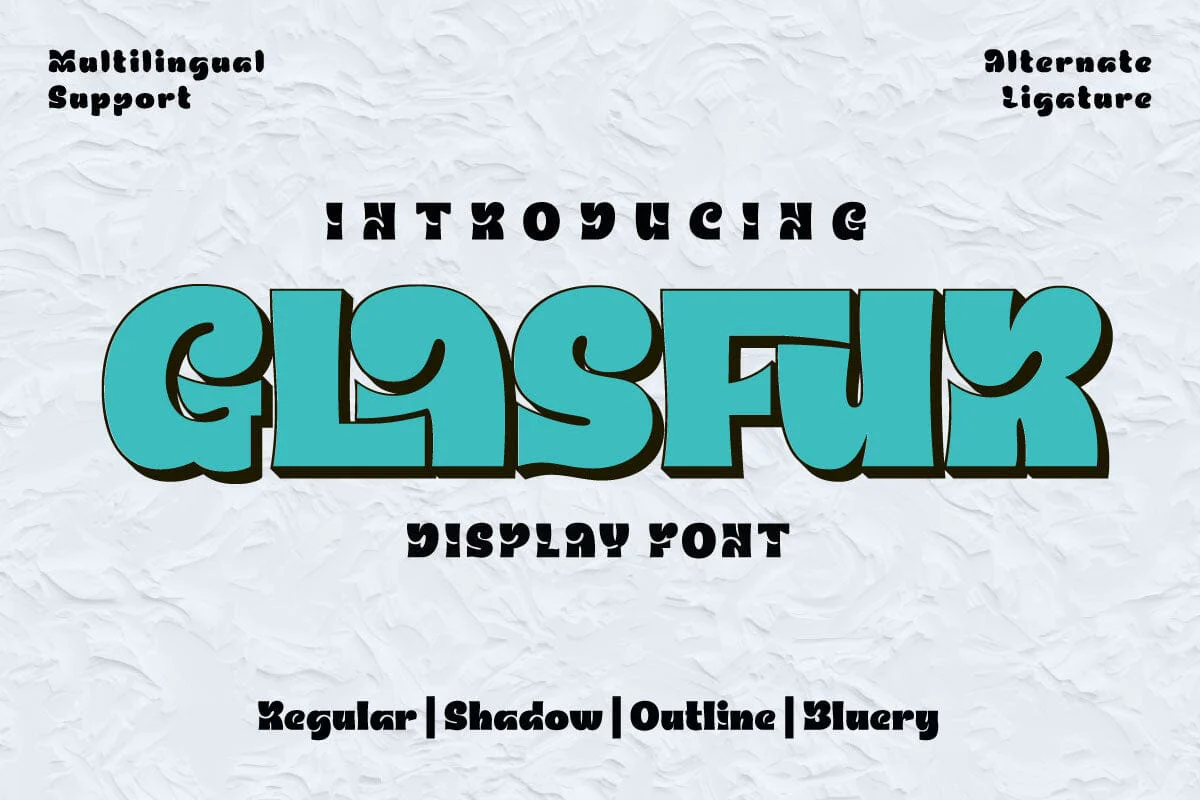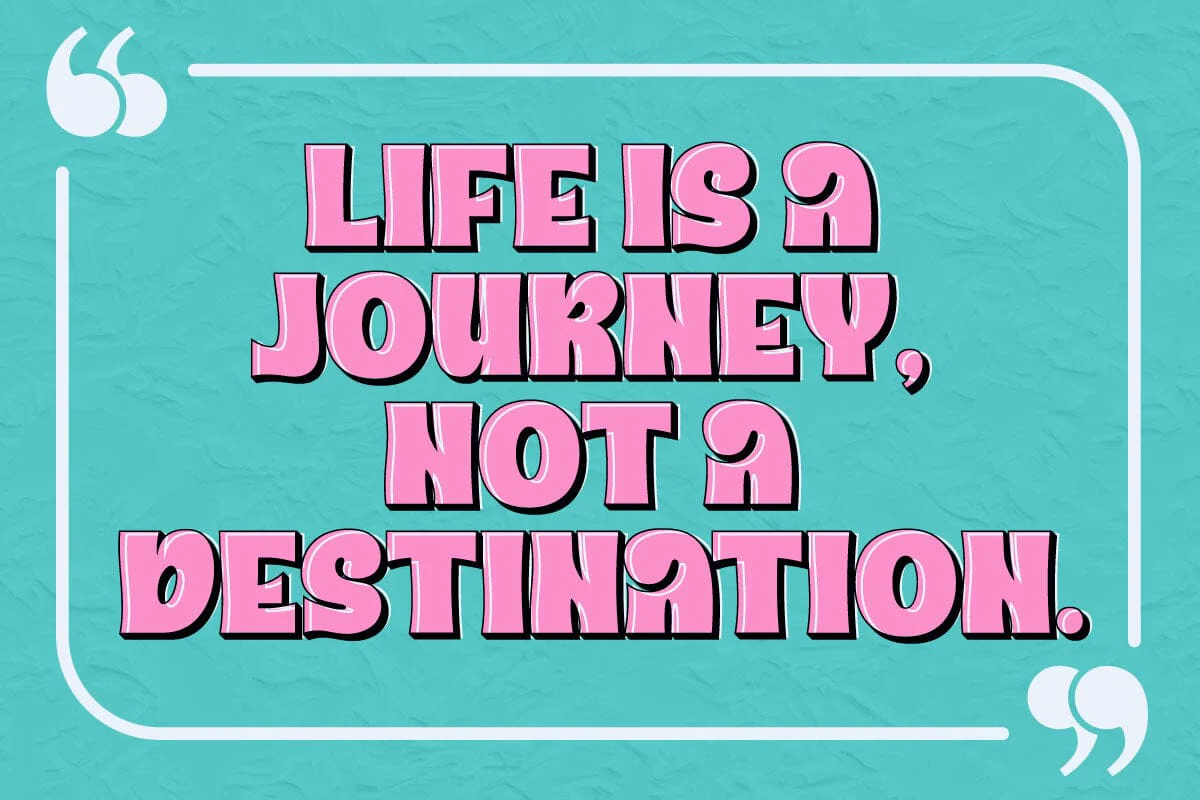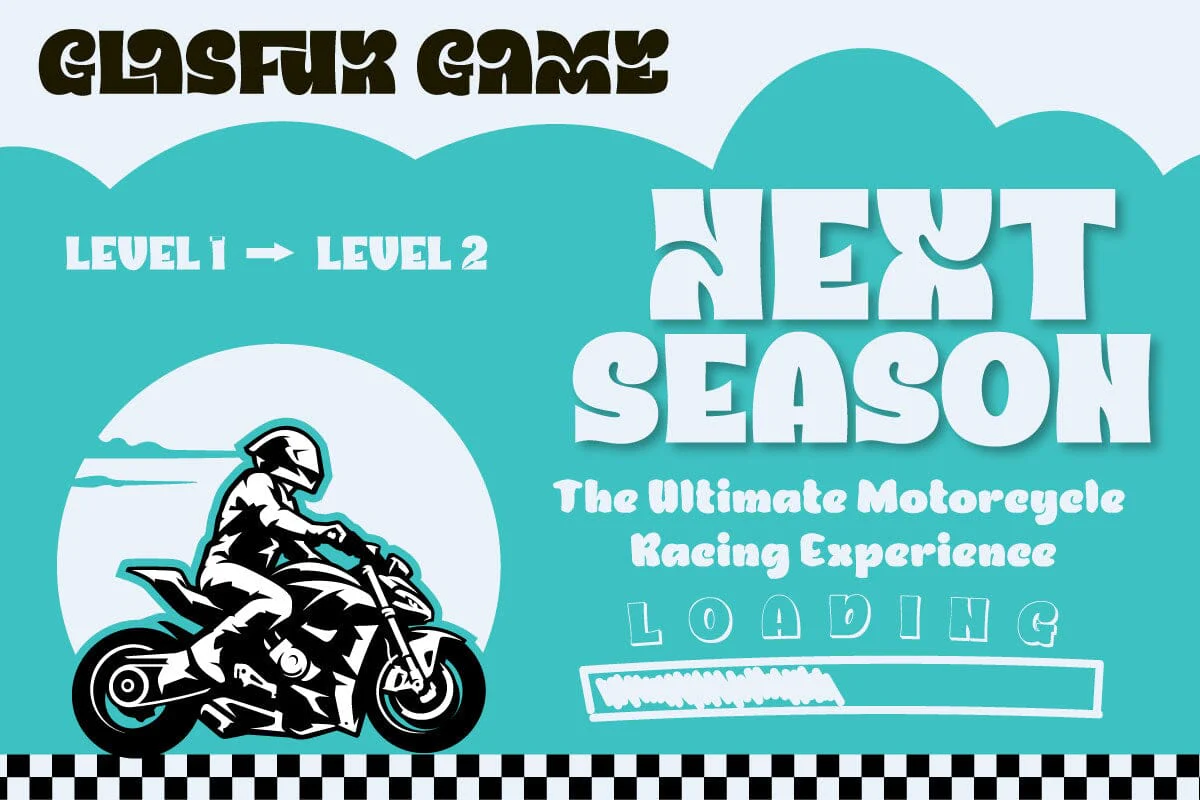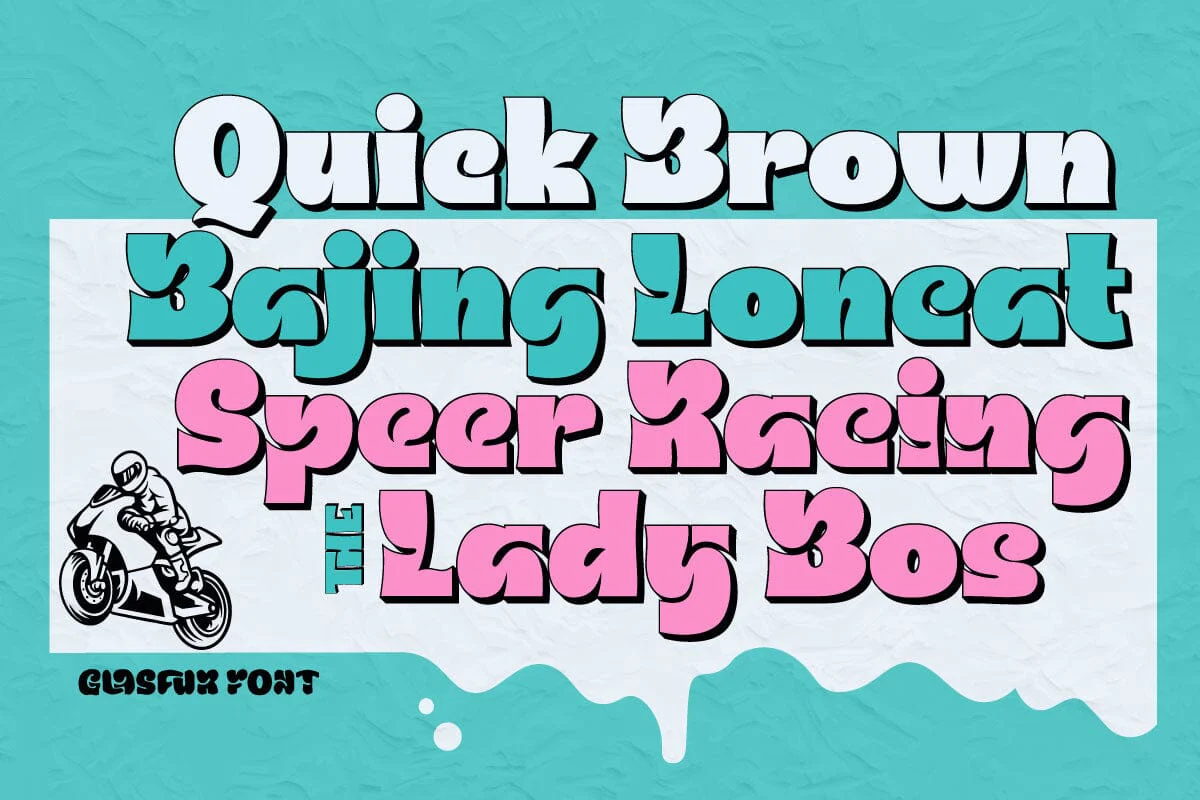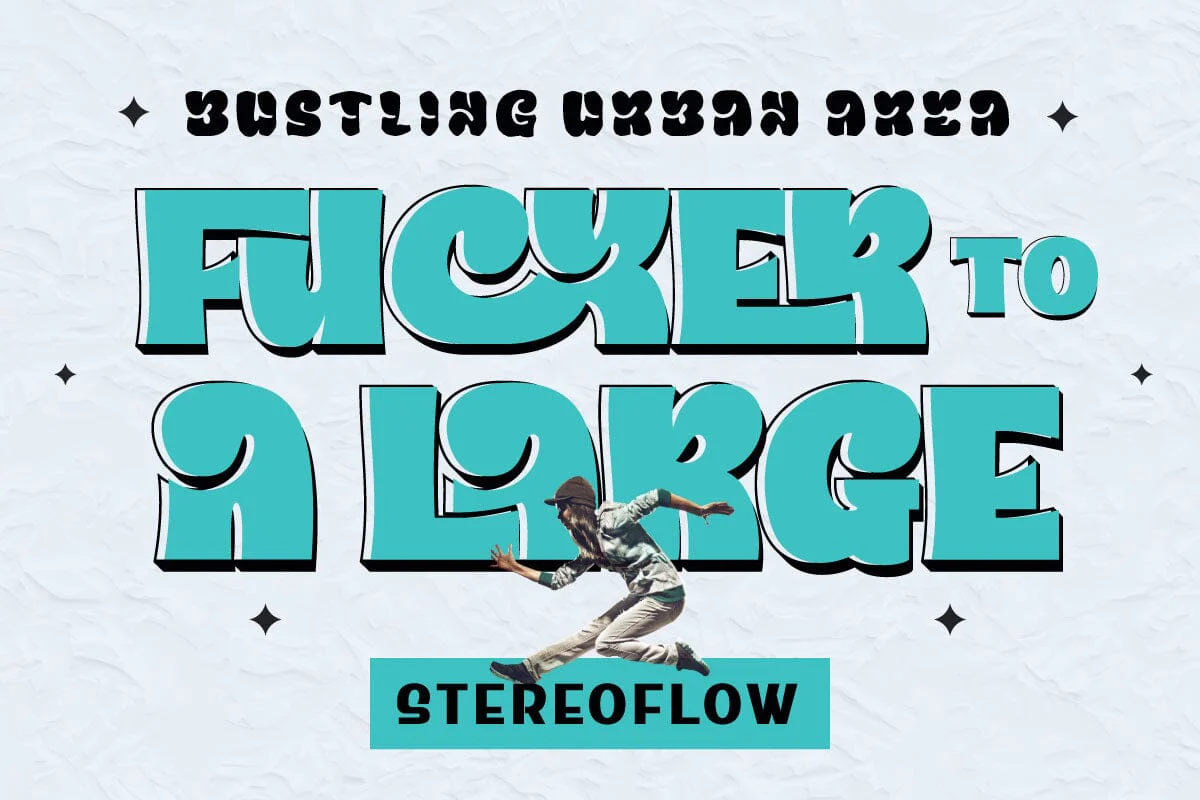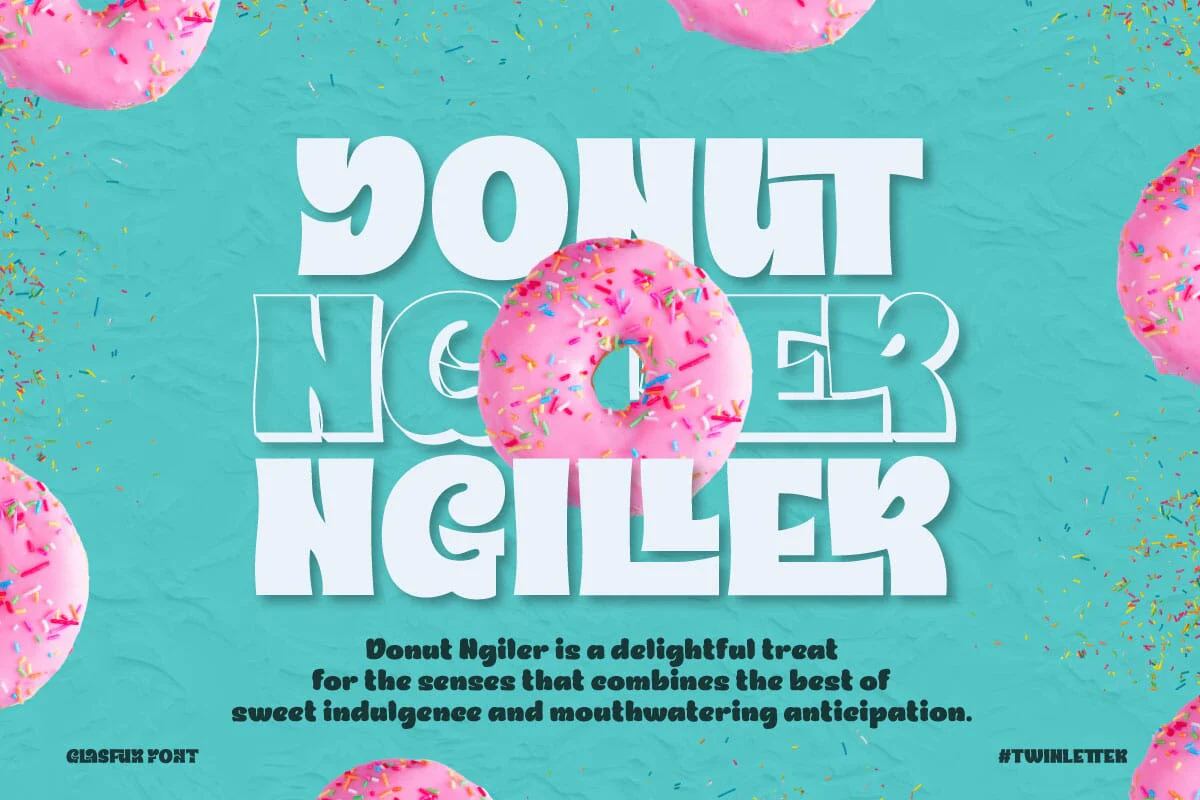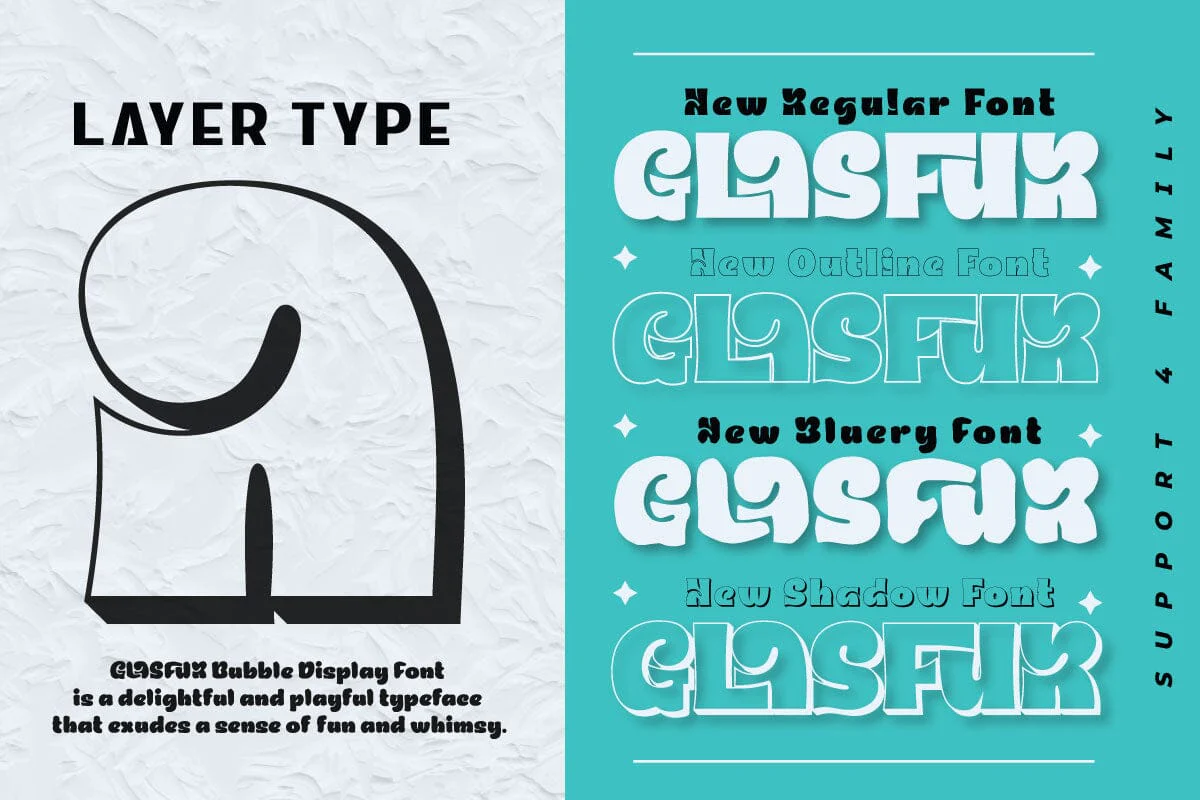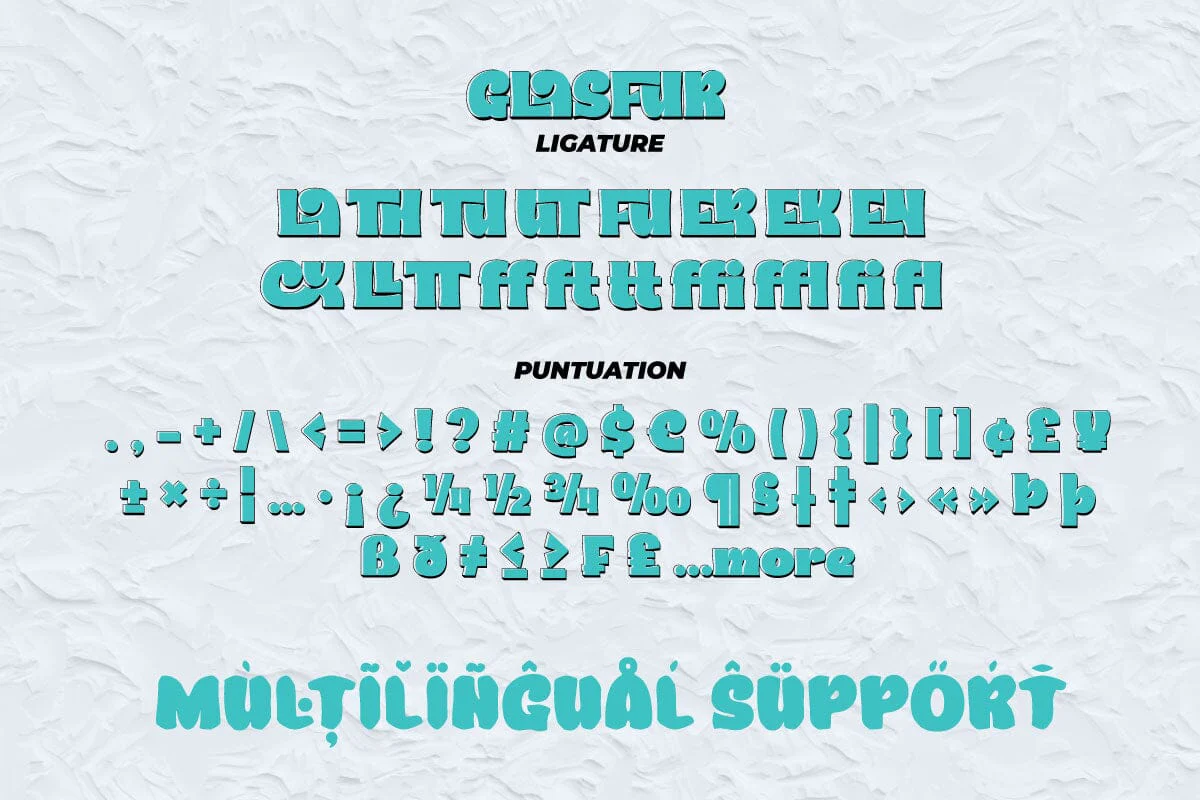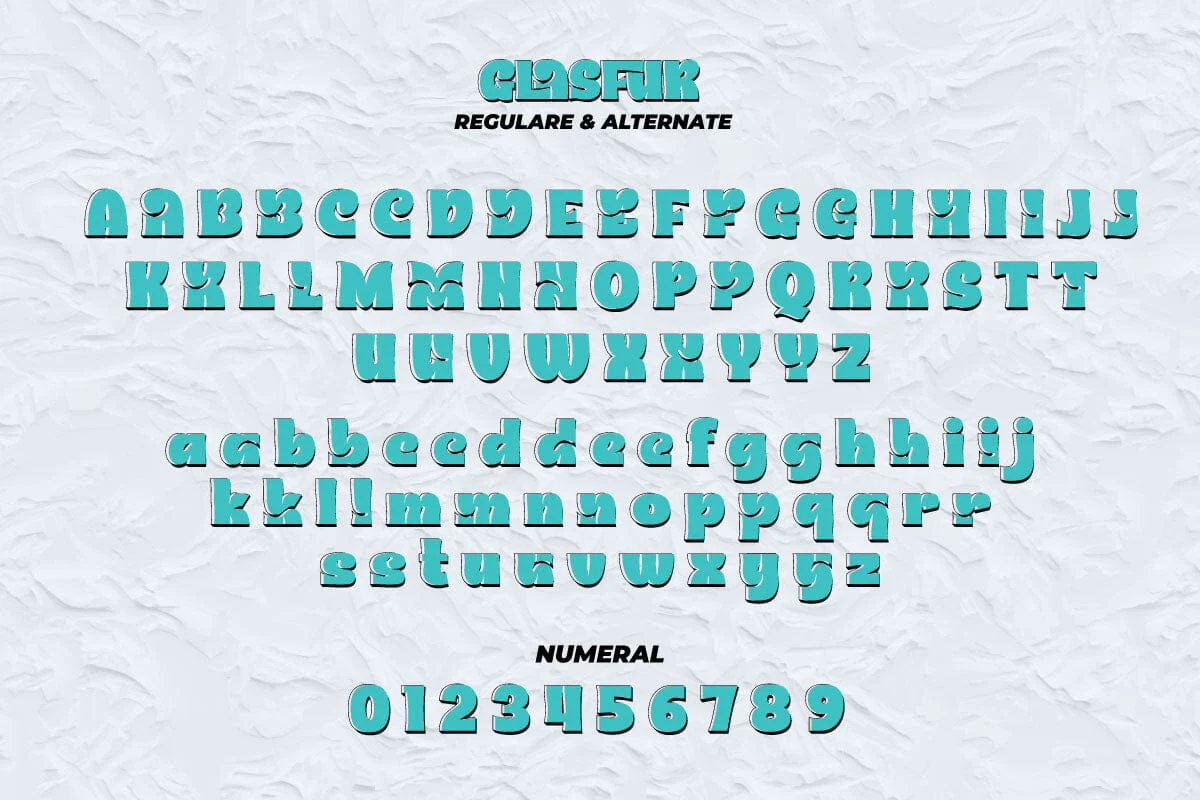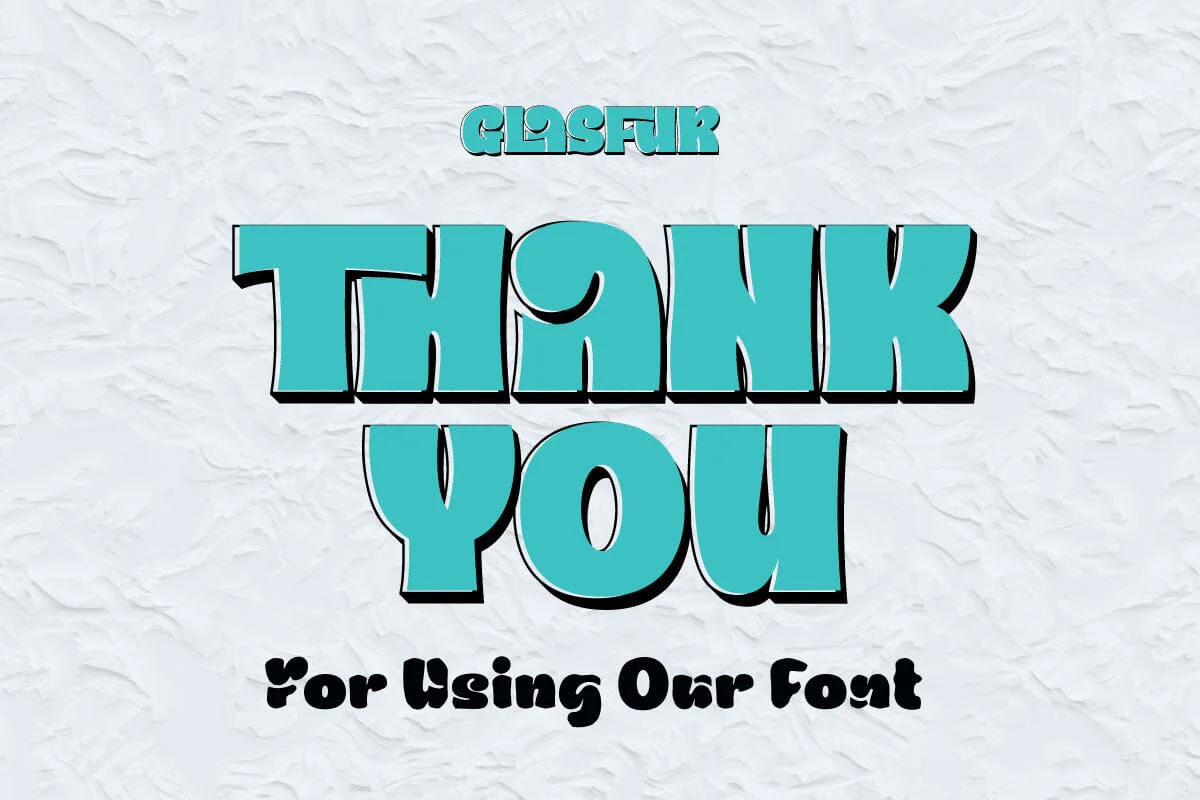
Glasfur - Bubble Display Font
In the amazing world of typography, the Glasfur font shines as a bright star. This font brings a sense of playfulness, uniqueness, and strength to any of your projects. With its bold and vibrant Bubble display style, Glasfur will take your message to the next level across a variety of visual displays. Glasfur's special features are not limited to his striking appearance. With four family variants, including regular, blurry, outline, and shadow, this font provides unlimited flexibility to depict your creativity. In addition, the ligature and alternate features allow you to create unique and interesting letter combinations. We understand that every project has different needs, and that's why Glasfur supports multiple languages, allowing you to connect with a global audience easily. Make each of your visual displays special with Glasfur. Own this font immediately and make your work the main highlight!